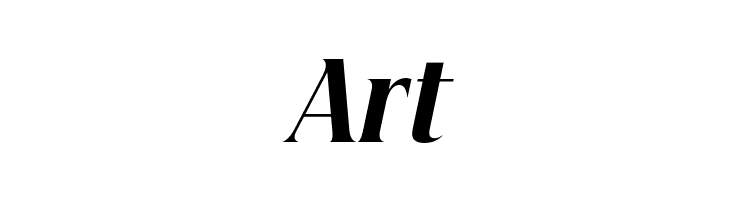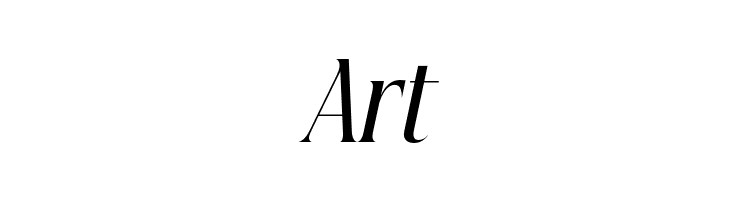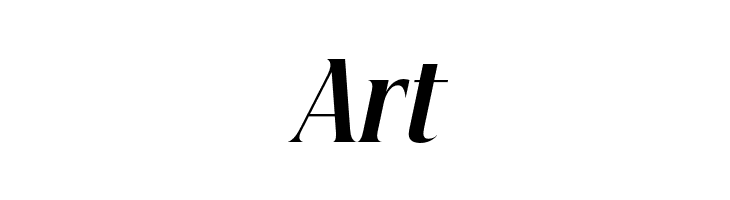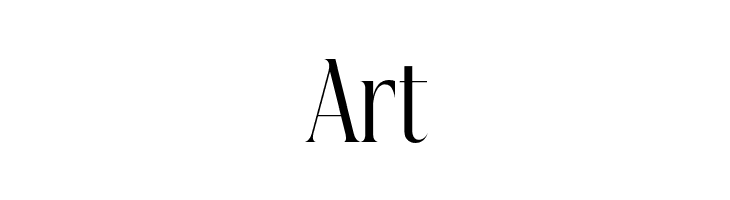
A sophisticated, condensed, and italicized font with high contrast and elegant style.
A refined serif font with high contrast and elegant serifs.
An elegant, italic typeface with high contrast and a modern yet vintage charm.
Elegant serif font with high contrast and refined details.
A sophisticated, condensed italic typeface with high contrast strokes.
A sophisticated, condensed bold italic font with high contrast and elegant style.
A bold, high-contrast, condensed serif font with elegant serifs.
Elegant, high-contrast, and condensed font with sharp serifs.
Elegant and sophisticated font with high contrast and condensed letterforms.
A bold, high-contrast serif font with elegant and sophisticated styling.